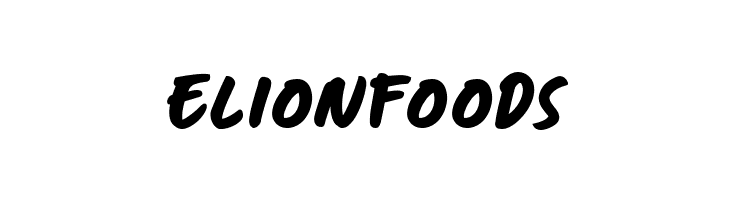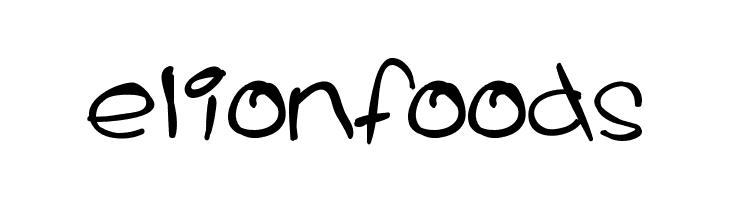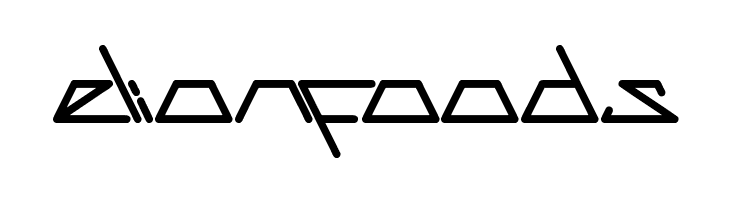
A geometric, modular font with a digital, modern aesthetic.
A bold, geometric font with a futuristic and modern design.
A bold, dynamic script font with a calligraphic style.
A chaotic, splatter-inspired decorative font with irregular, jagged edges.
A bold, distressed font with a rough, textured appearance.
A bold, playful handwritten font with smooth, rounded characters.